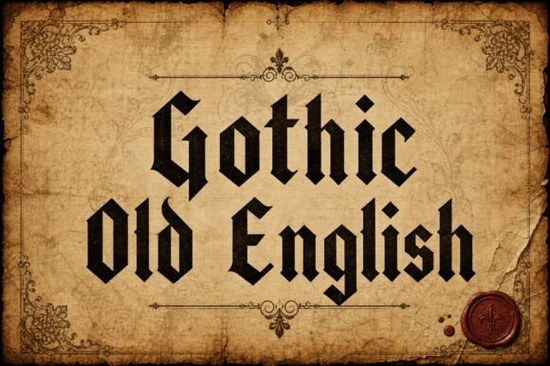
If you’ve ever wanted to add a touch of medieval grandeur or vintage authority to your designs, the Gothic Old English Font might be exactly what you’re looking for. This blackletter-style typeface channels centuries of typographic tradition, offering a bold, sharp-edged aesthetic that works beautifully for logos, posters, tattoos, and more. Whether you're a small business owner crafting a brand identity or a hobbyist designing custom merch, this font brings historical weight without sacrificing visual impact.
What makes Gothic Old English stand out from other blackletter fonts?
Unlike generic gothic fonts that can feel overly ornate or hard to read, Gothic Old English strikes a balance between authenticity and usability. Its letterforms are rooted in traditional Old English calligraphy think illuminated manuscripts and royal decrees but refined for modern applications. The sharp serifs, dramatic vertical strokes, and compact spacing give it presence, while still maintaining legibility at larger sizes.
You’ll find it especially useful when you need something that feels authoritative, timeless, or even slightly mysterious perfect for metal band album covers, fantasy-themed merchandise, wedding certificates with a vintage twist, or boutique branding that leans into heritage aesthetics.
Where can you actually use this font?
Thanks to its strong visual character, Gothic Old English shines in projects where first impressions matter. Here are just a few practical uses:
- Logo design – Especially for breweries, tattoo studios, bookstores, or any brand wanting to signal tradition and craftsmanship.
- T-shirt and merch design – Pair it with minimalist graphics for high-contrast, eye-catching apparel.
- Event posters – Ideal for themed parties, theater productions, or music gigs needing dramatic typography.
- Certificates and invitations – Adds gravitas to formal documents without looking outdated.
- Digital art and social media graphics – Works well as a headline font over dark or textured backgrounds.
Because it’s a display font, it’s best used sparingly typically for headlines, titles, or short phrases rather than body text. But that’s part of its charm: it’s meant to command attention, not blend in.
Is it beginner-friendly for crafters and small businesses?
Absolutely. Once installed, Gothic Old English works like any standard desktop font in programs like Adobe Illustrator, Canva (via upload), Procreate, or Silhouette Studio. No special skills required just select it, type your phrase, and adjust size or spacing as needed. Many users pair it with clean sans-serif fonts for contrast, letting the gothic style pop while keeping supporting text readable.
How does it hold up in print vs. digital?
This font performs reliably in both environments. In print whether on business cards, posters, or fabric it retains crisp edges and consistent weight, assuming your printer resolution is adequate. Digitally, it scales well for web banners, YouTube thumbnails, or Instagram stories, though you’ll want to avoid tiny sizes where the fine details might blur.
For best results, always preview your design at actual size before finalizing. And remember: because of its dense structure, generous letter-spacing (tracking) can improve readability in shorter phrases.
Quick checklist before you buy or use it
- Confirm your use case – Is this for personal, commercial, or print-on-demand? Check the license included with your purchase.
- Test readability – Try your intended phrase at the final output size to ensure clarity.
- Pair wisely – Combine with a simple, neutral font for body text or secondary info.
- Consider context – While powerful, this style isn’t universal. Avoid using it for playful, modern, or tech-focused brands unless irony is intentional.
With its rich historical roots and versatile visual punch, Gothic Old English offers more than just style it offers storytelling through letterforms. If your project calls for dignity, drama, or a dash of old-world flair, this font could be your secret weapon.